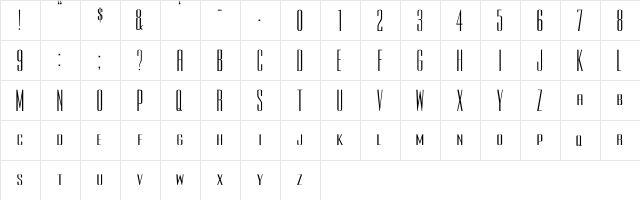
Rothman Wd Regular
Design Context for Rothman Wd Typeface
Rothman Wd is a composed and adaptable typeface that performs quietly and consistently across a wide range of design contexts.